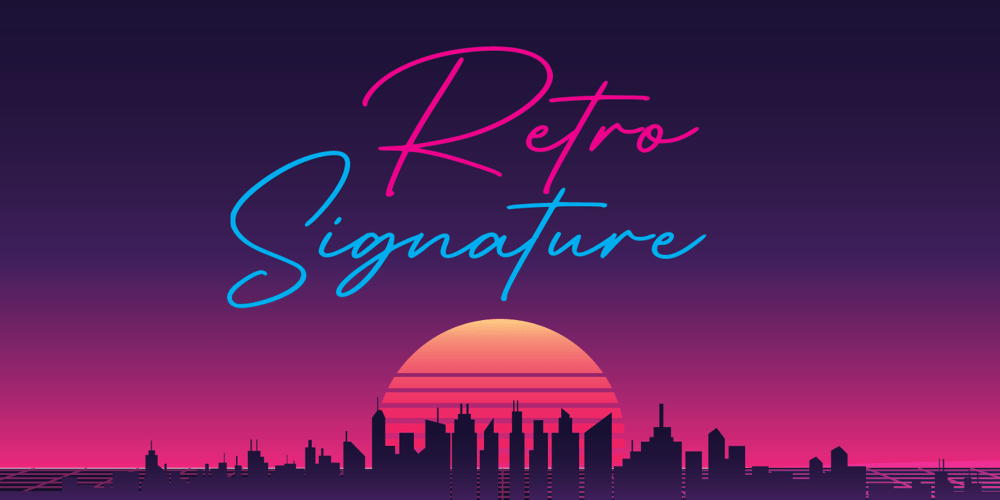
Retro Signature Font Family was designed by Sigit Dwipa and published by Nirmana Visual. Retro Signature contains 1 styles and family package options. Retro Signature a classy, contemporary of script font, inspired by 1980’s and neon lights.Ideally suited for advertising and packaging, festive occasions, editorial and publishing, creative industries and posters .